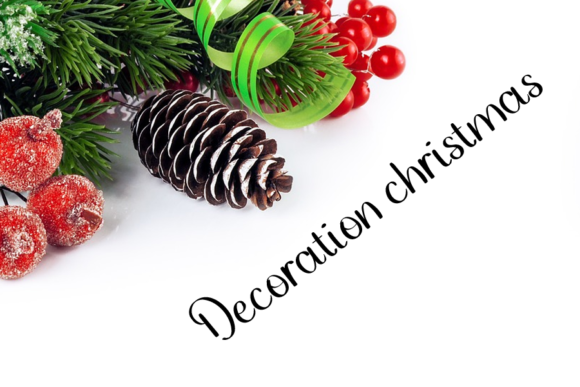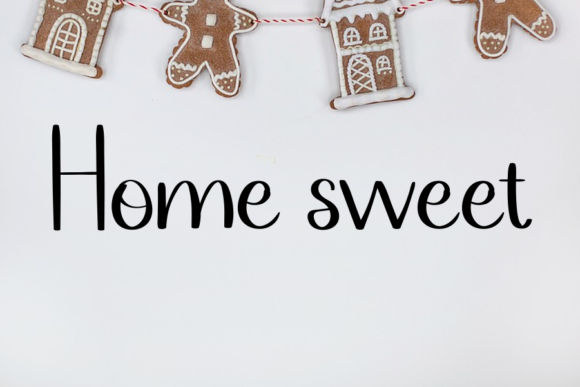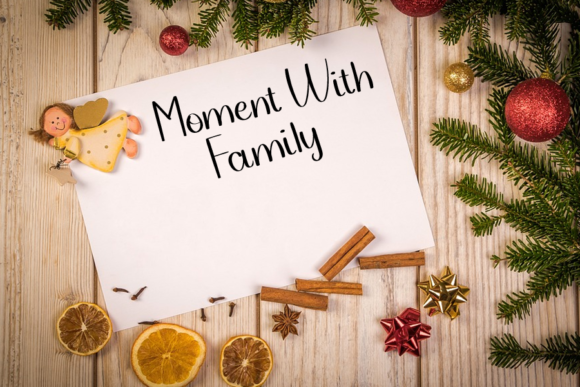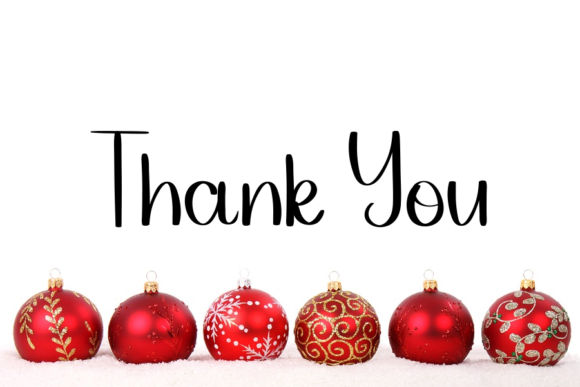
Wedding Rainbow Font
About Wedding Rainbow Font
Wedding Rainbow is a round lettered and chic handwritten font. Whether you’re looking for fonts for Instagram or calligraphy scripts for DIY projects, this font will turn any creative idea into a true piece of art!